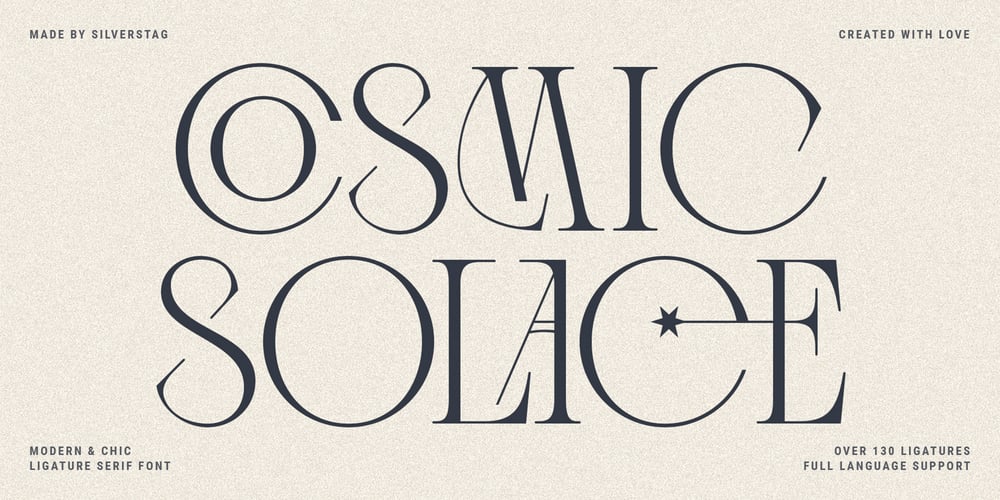
Cosmic Solace Font Family was designed by SilverStag and published by SilverStag. Cosmic Solace contains 1 styles and family package options. Introducing Cosmic Solace, a timeless serif font that seamlessly marries the grace of the Eiffel Tower’s architecture with the modernity of typography. With a touch of Parisian elegance, this font captures the essence of intricate ironwork and structural finesse, infusing your designs with an air of sophistication.